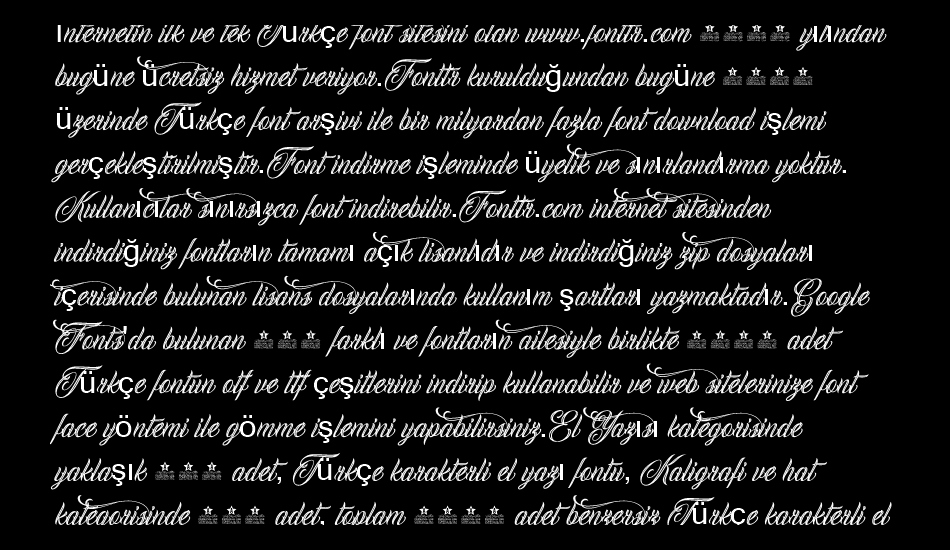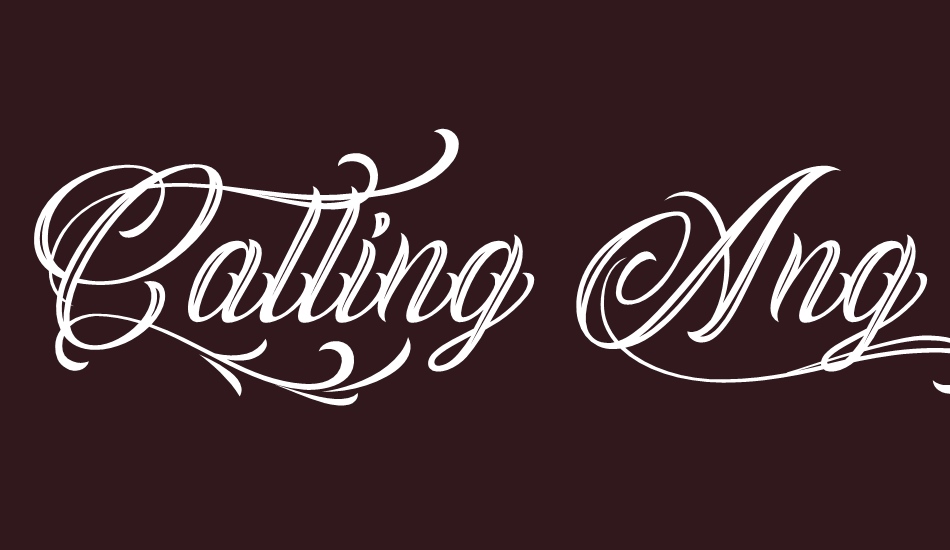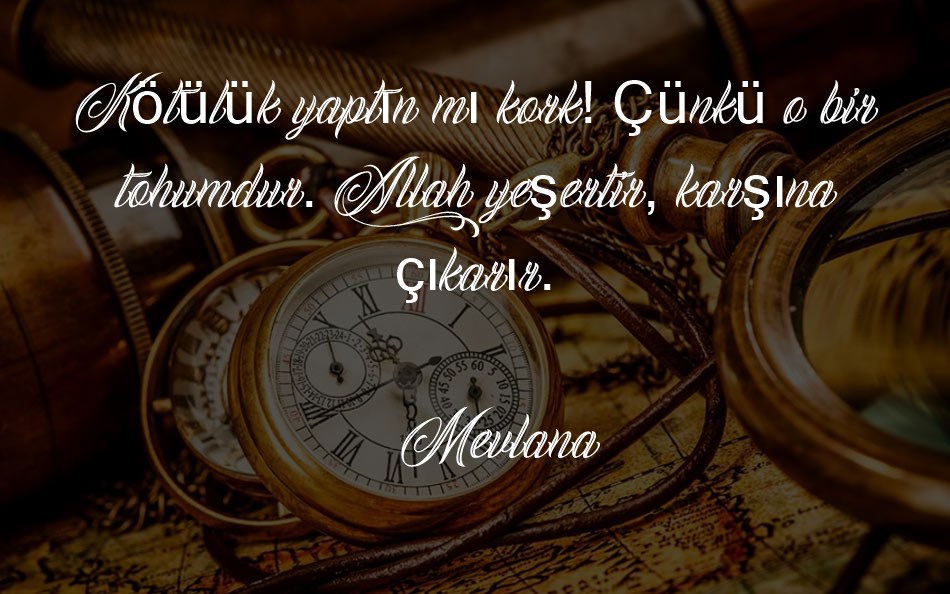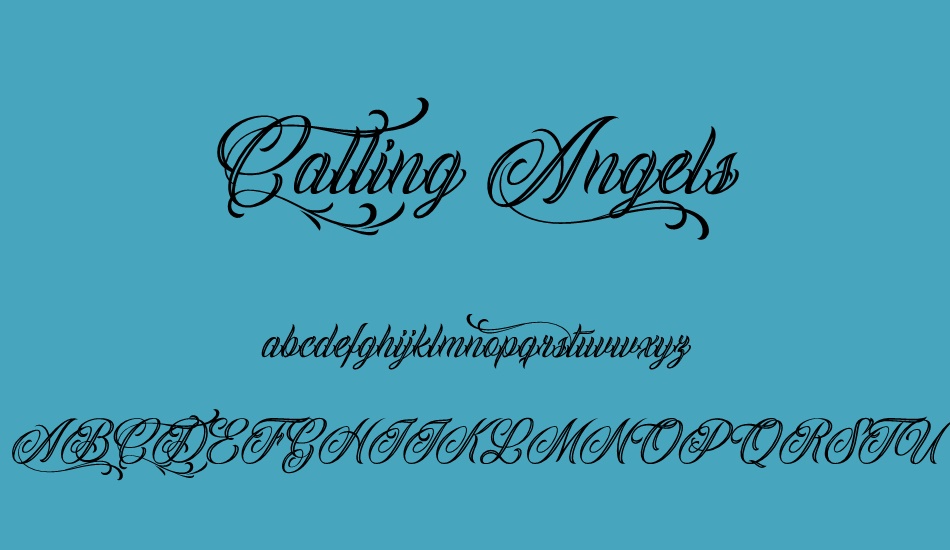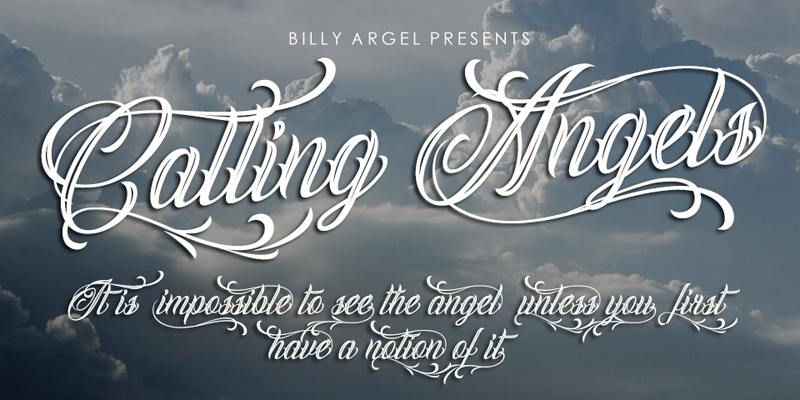
Calling Angels font
Calling Angels
The full version of this font has loose swashes are ligatures is not fused at the letters like in the free version. Also has another ligatures for better reading.